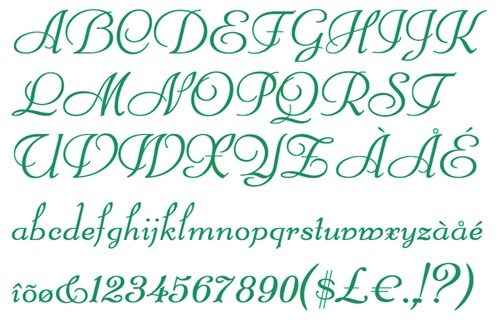
Unicorn Creatives is happy to present Globe Trotter Embrilliance Embroidery Font - Elegant Handwriting Script - BX font machine embroidery font which has Handwritten style machine embroidery font suitable for personalizing items like home decor and gift bags. The flowing strokes add a unique touch, available in Embrilliance format. included. If you would like to view more embroidery fonts and alphabets please search our embroidery fonts page.
Globe Trotter Embrilliance Embroidery Font - Elegant Handwriting Script - BX font